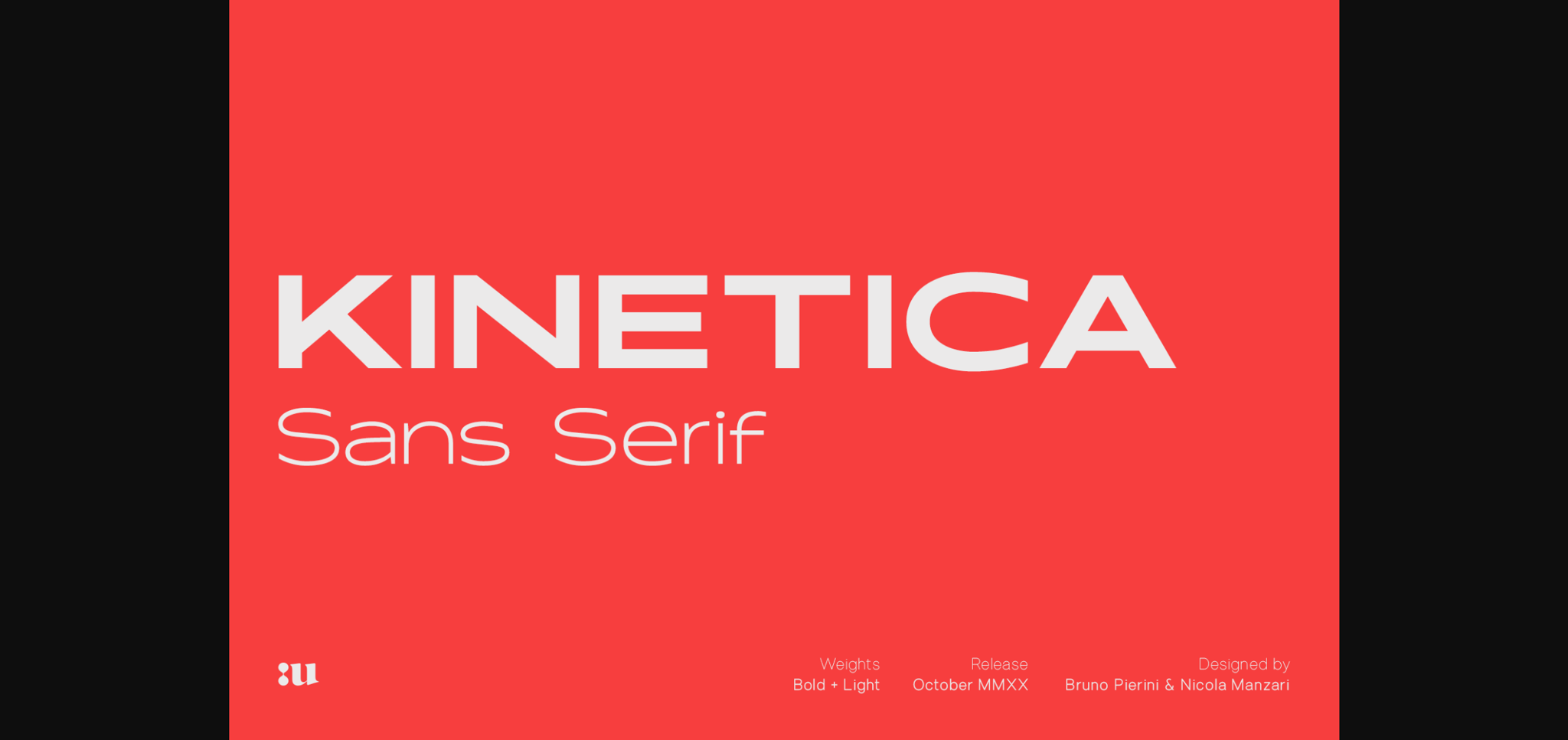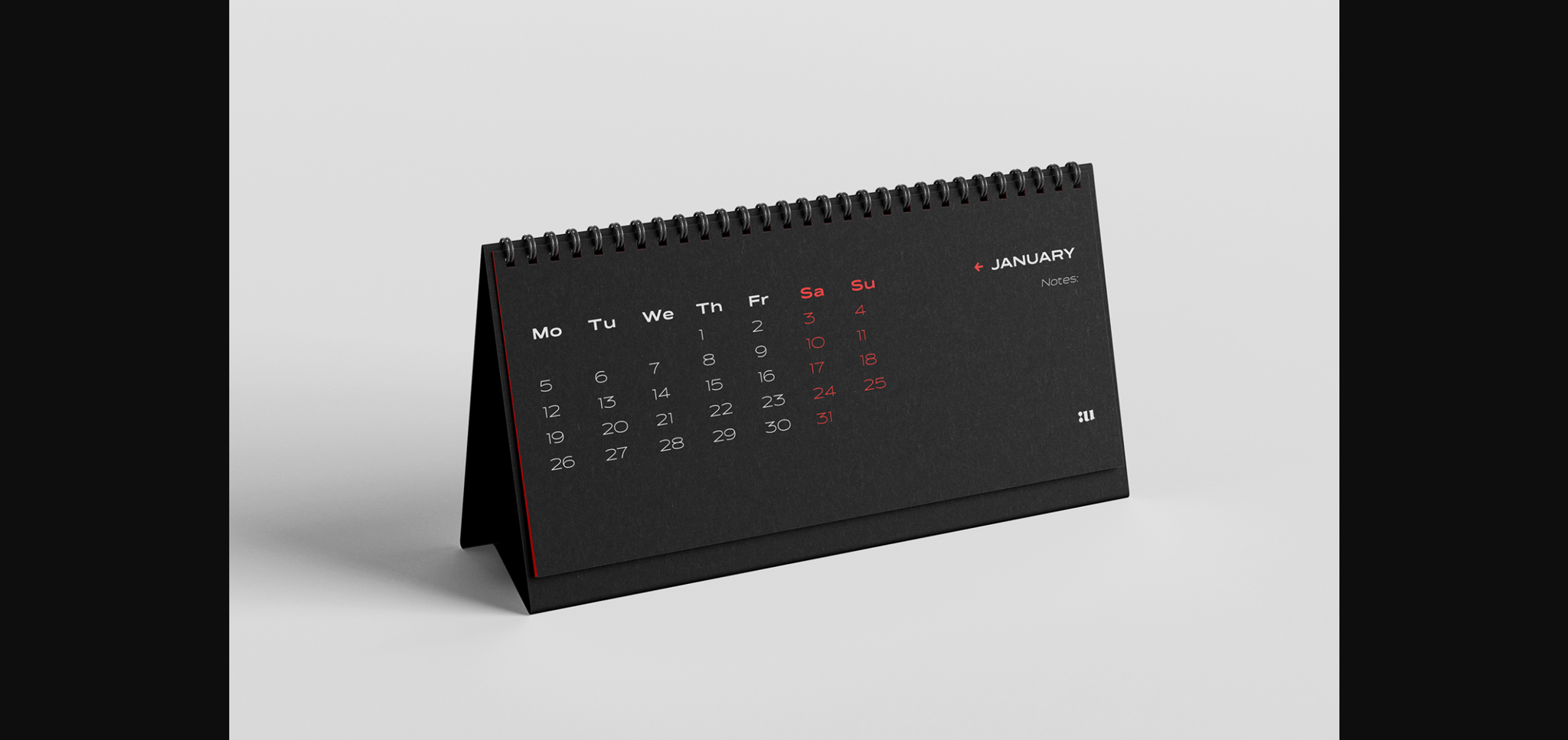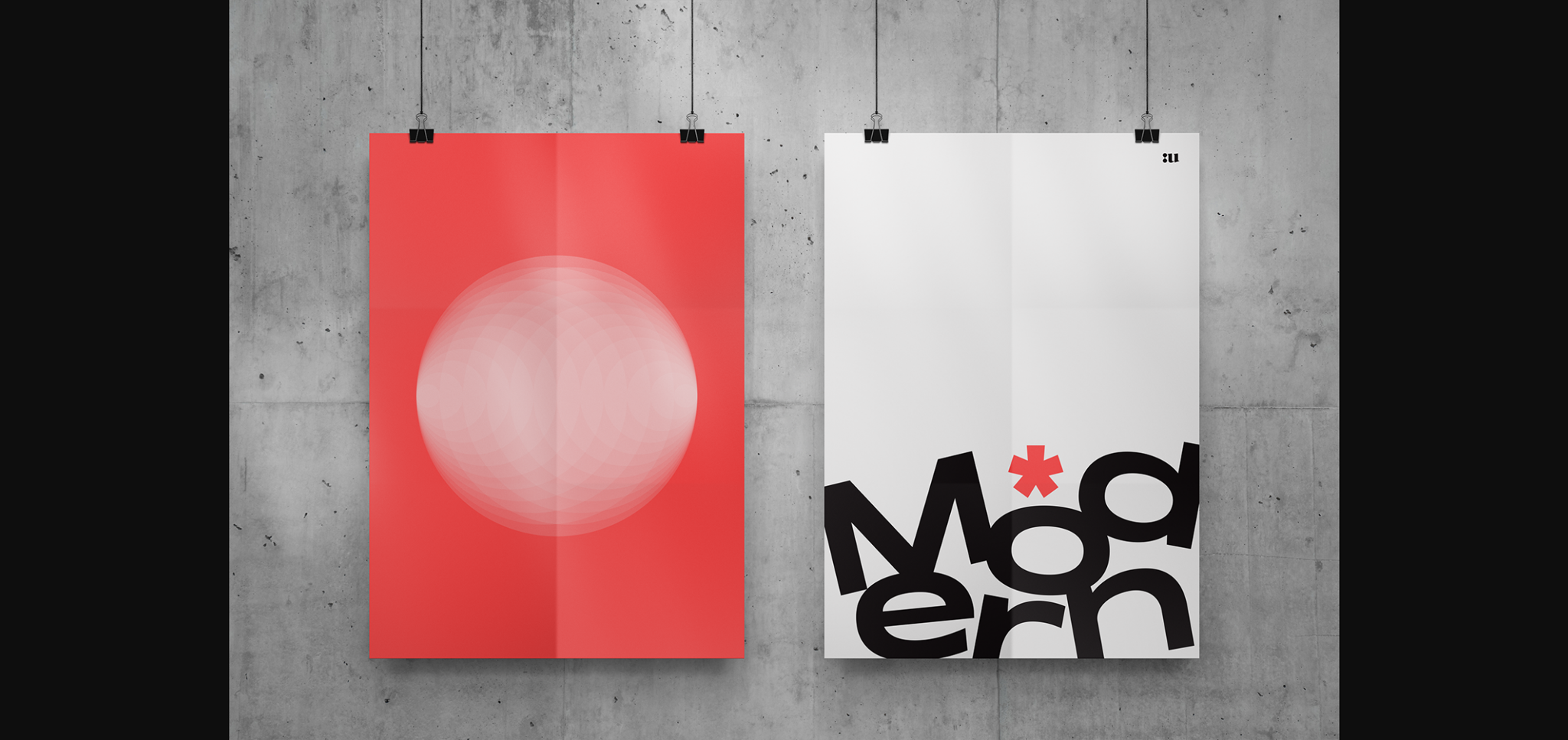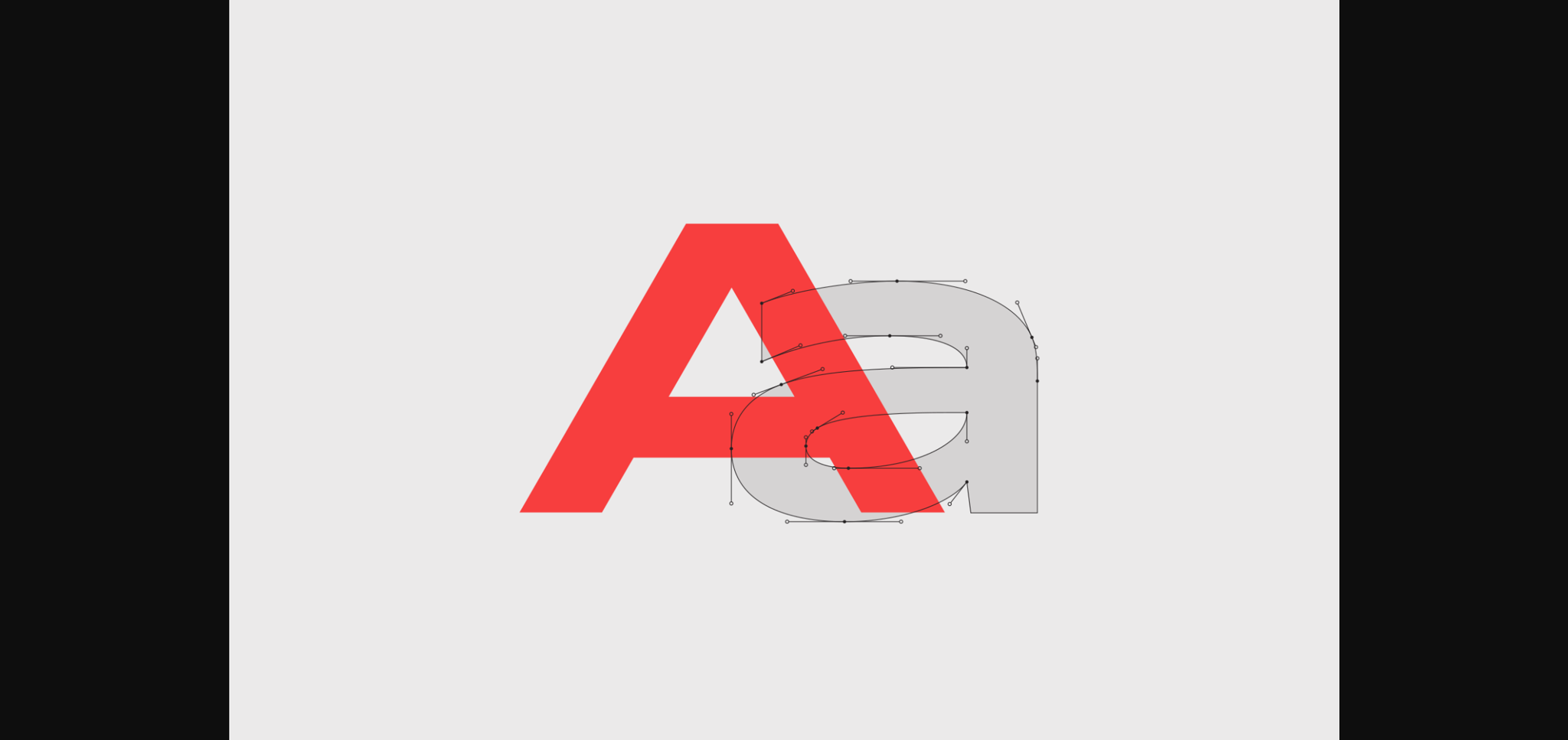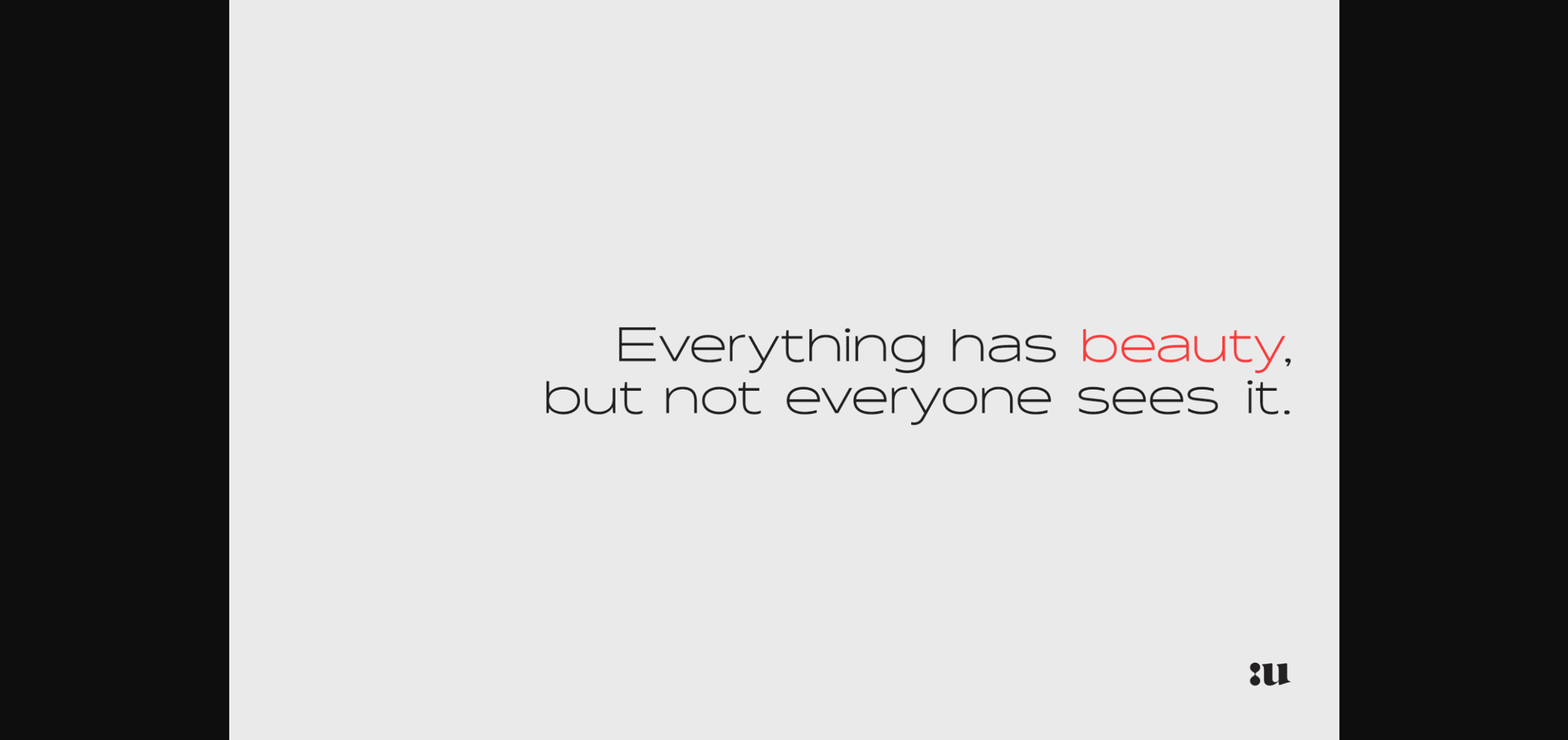
About Kinetica Font
“Kinetica” – a versatile wide typeface, inspired by motion and globalization. Suited for a maximum visual impact, includes two weights with true matching obliques.
Kinetica is a type system that embraces the minimalist look associated with neo-grotesque, blending bold lines with high refined curves and iconic geometric shifts.
The “Kinetica” family includes two weights (Light and Bold) with their matching obliques and covers several languages based on the Latin alphabet.
Ideal for headlines, large-format prints, brand identities, social media, advertising, editorial design, posters.